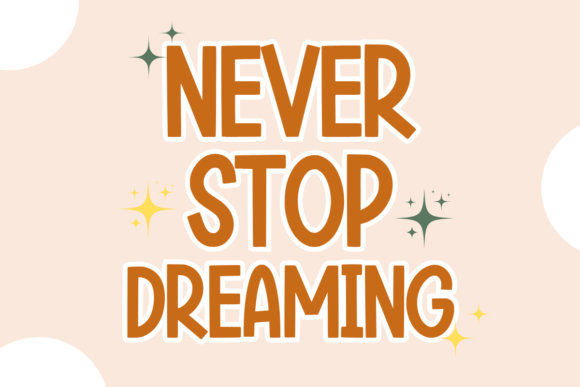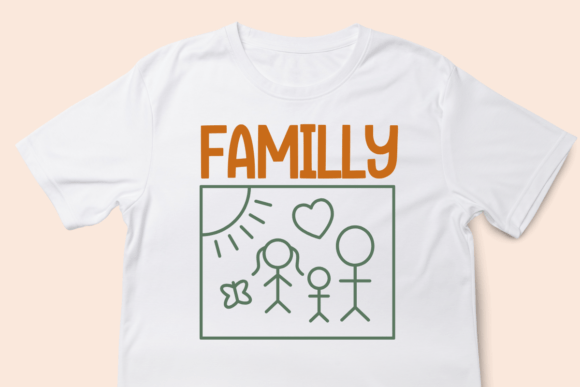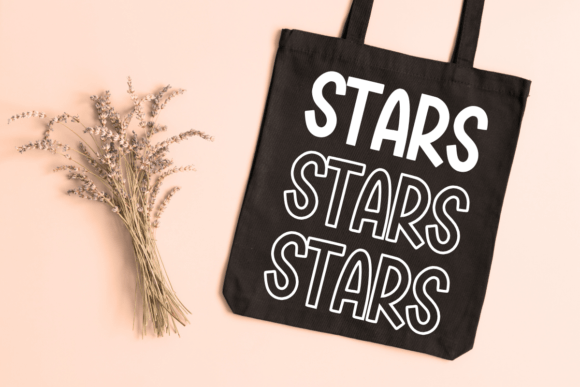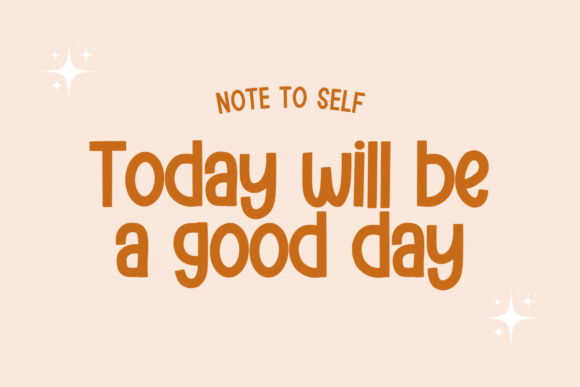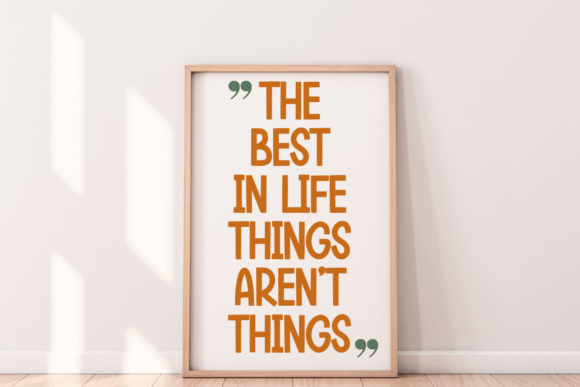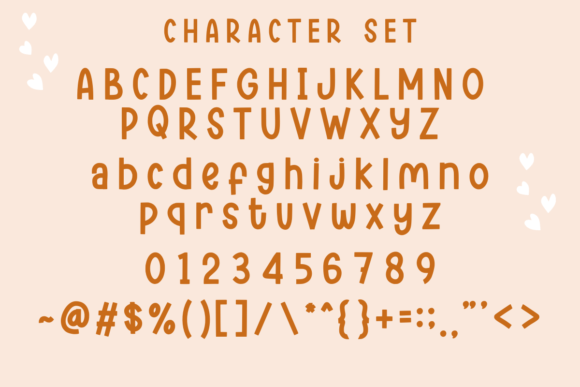
Introduction to Sanshine Font
Sanshine is a fun and friendly display font.
Add it to your creative ideas and you will love the results .
Key Features of Sanshine Font
Why Choose Sanshine Font?
Sanshine Font offers exceptional quality and versatility, making it a valuable addition to your design toolkit. Whether you’re creating for personal projects or commercial use, Sanshine Font delivers professional results.